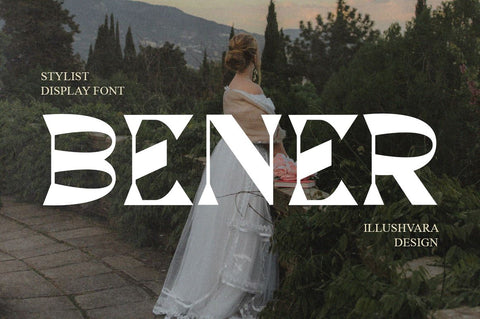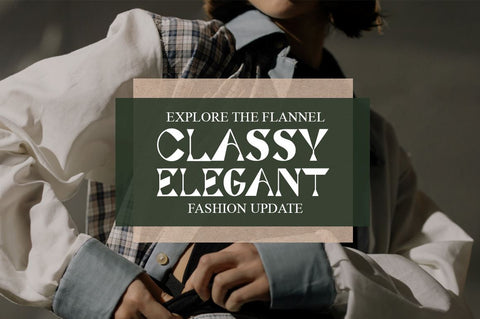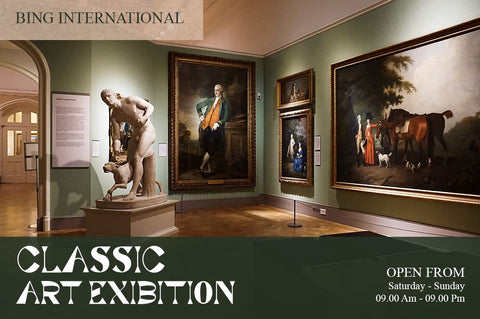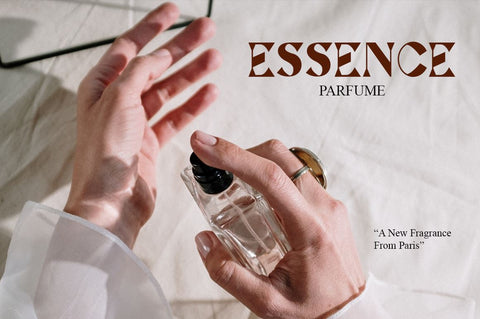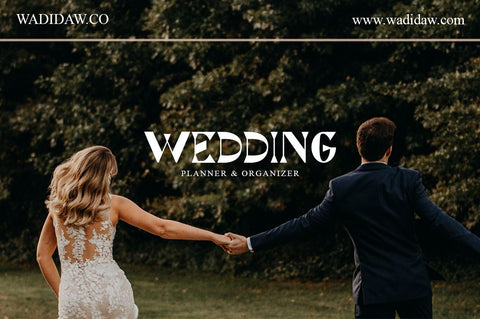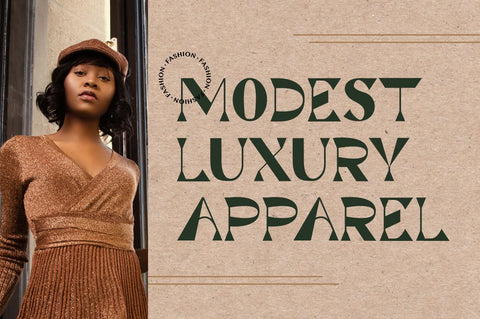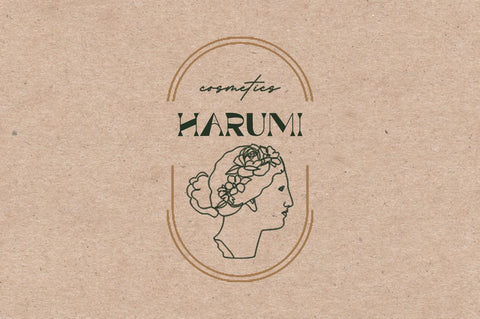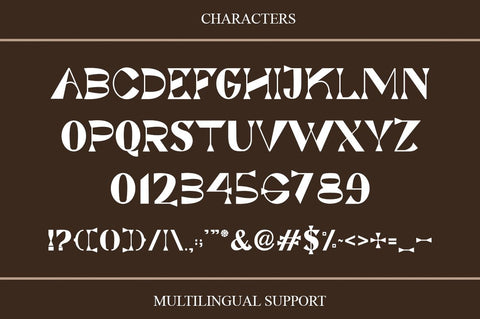
Bener - Stylist Display Font
Bener is a stylist's elegant display font. Developt was basic in classic serif font brought to stylist with elegant style.
Full glyphs uppercase with multilingual characters, perfectly made to be applied especially in logo, wedding, art gallery labels,
magazines, greeting cards, fashion or more packaging perfume labels, or any type of promotion.